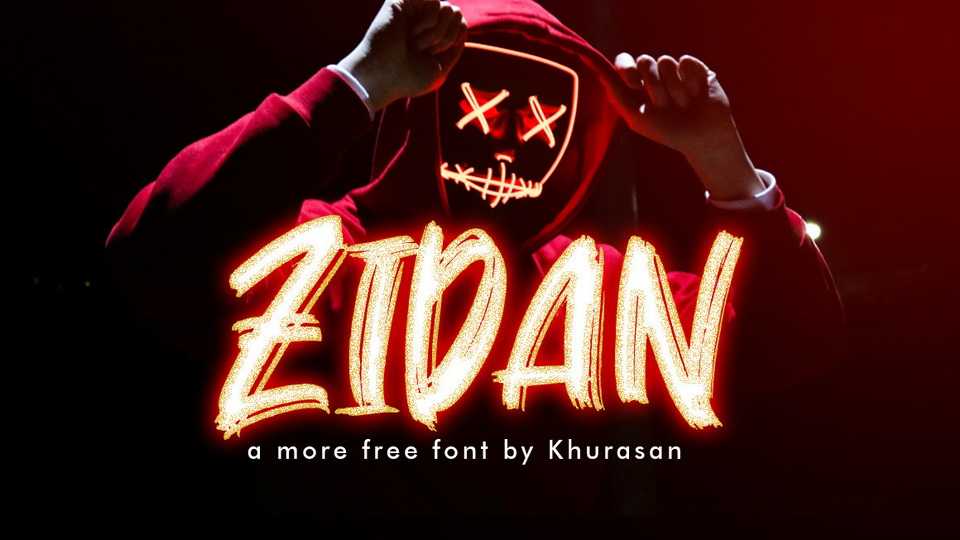
Download Zidan font, a bold brush hand lettered typeface with a natural rough texture. Zidan font is perfect for posters, logos, magazines, book covers, banners, and many more.